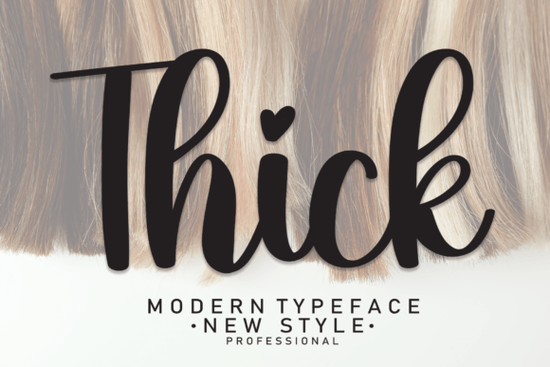
If you're looking for a bold, hand-drawn script font that holds up well at large sizes especially for wall art, wedding stationery, or product labels you’ll find Thick Font especially useful. It’s not just thick in stroke weight; it carries real personality, with confident curves and natural rhythm that mimic skilled pen work. Unlike some heavy scripts that feel stiff or overly digitized, Thick Font keeps its warmth and flow, making it ideal when you want handwritten charm without sacrificing clarity or impact.
When does Thick Font work best?
Think about where legibility and presence matter most: a wooden wedding sign hung above a sweetheart table, a sticker on a small-batch candle jar, or a watermark overlaid on a photographer’s portfolio image. Thick Font shines in those situations not because it’s flashy, but because it’s readable, distinctive, and versatile. Its generous letterforms prevent thin lines from disappearing during print or cutting (important for vinyl or Cricut users), and its spacing works well both at 12 pt for envelope liners and 200 pt for a gallery wall quote.
It’s also a smart choice for small businesses creating their own packaging or social media banners. You don’t need to hire a designer every time you update a promo graphic just drop Thick Font into Canva or Adobe Express, pair it with a clean sans-serif for body text, and you’ve got something cohesive and professional-looking.
How does it compare to other popular script fonts?
While Thick Font stands out for its sturdy, grounded feel, it sits nicely alongside other expressive scripts each with its own role. For example, Cherry Font leans more playful and bouncy, great for baby shower invites or boutique shop tags. Groovy Font adds subtle retro flair, perfect for vinyl record labels or café menus. If you’re after delicate elegance, Enchanting Script Font offers fine hairlines and graceful terminals ideal for formal invitations or luxury skincare branding. And if you love Thick Font but want something with a softer, more romantic twist, You Are My Rainbow Font brings gentle swashes and airy spacing, lovely for heartfelt notes or greeting cards.
What projects do crafters actually use it for?
- Custom acrylic or wood signs for weddings and home decor
- Print-on-demand mugs, tote bags, and notebooks (especially with short phrases like “Good Vibes Only” or “Made With Love”)
- Digital stickers for Procreate or GoodNotes its bold lines scan cleanly and scale well
- Photography overlays: watermarks, client name tags, or seasonal captions (e.g., “Summer 2024” on a beach photo)
- Hand-lettered-style packaging for handmade soap, honey, or spice blends
One small-business owner told us she uses Thick Font for all her product labels because customers consistently comment on how “friendly and trustworthy” the type feels even before reading the description. That’s not accidental: strong, consistent strokes signal confidence and care.
Remember: script fonts rely heavily on context. What works beautifully on a chalkboard menu might feel overwhelming on a tiny business card. Try Thick Font at different sizes and weights first many users start by typing their brand name or a common phrase (“Thank You”, “Est. 2022”, “Small Batch”) and checking how it renders across devices and outputs.